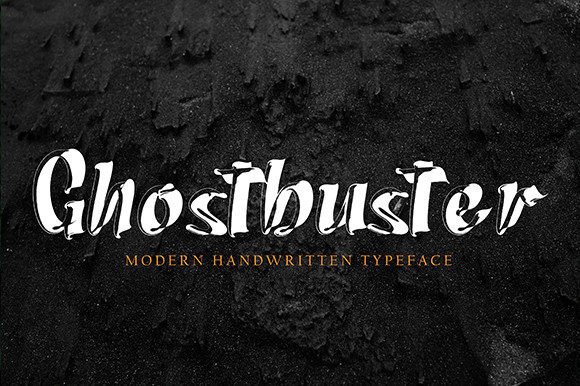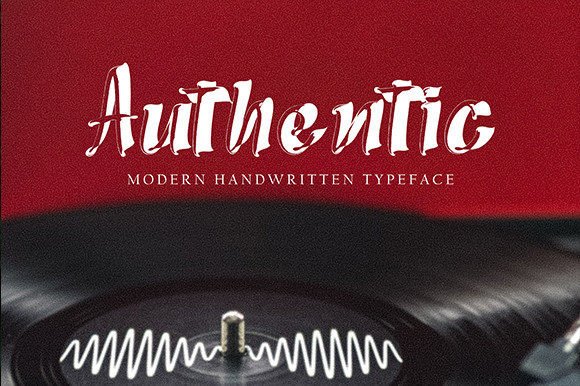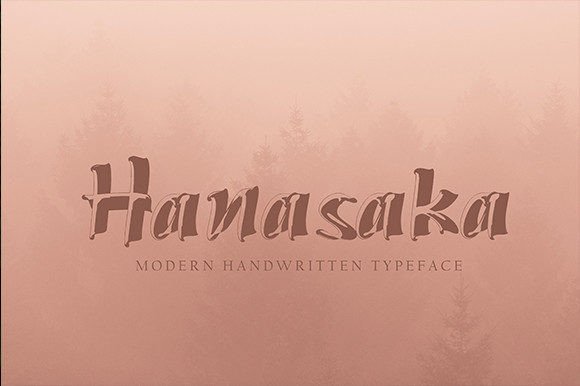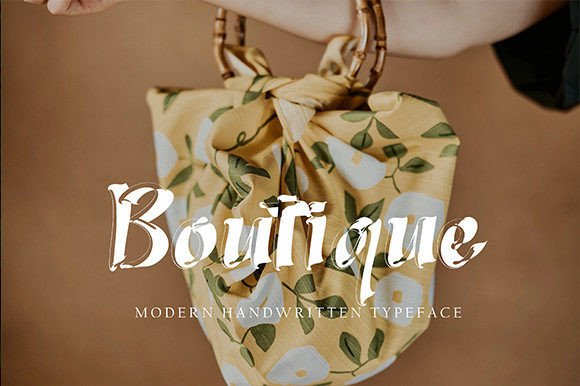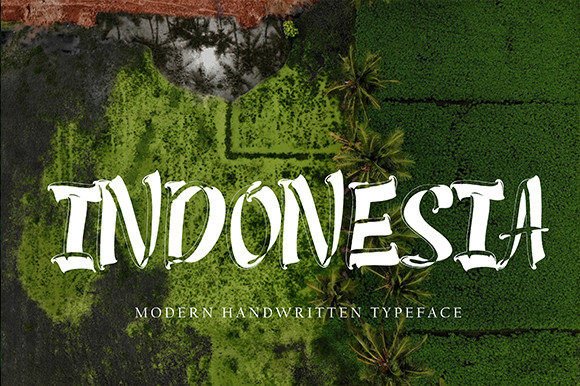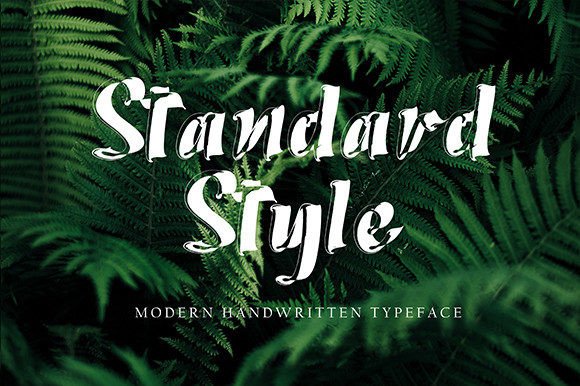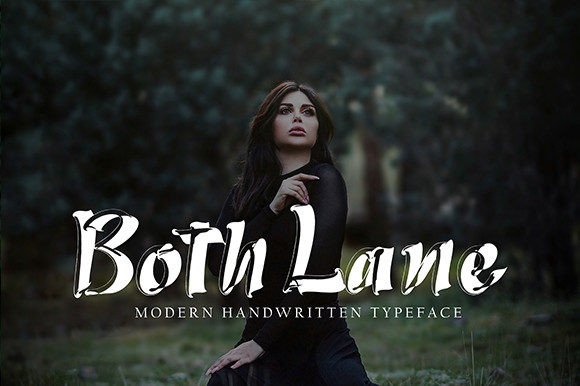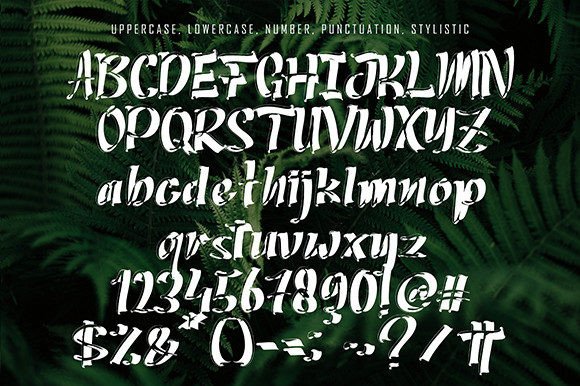
Ink Gold Font
About Ink Gold Font
“Ink Gold is a beautiful handwritten font featuring a distinctive new style. Designed for versatility, this font is perfect for a wide array of projects including quotes, logos, blog headers, posters, branding, letters, invitations, stationery, and more.
The allure of Ink Gold lies in its unique handwritten style, introducing a fresh and contemporary aesthetic. This font is a perfect choice for designers seeking a typeface that brings a modern and stylish touch to their creative endeavors.
Whether you’re working on a logo or crafting a beautiful invitation, Ink Gold stands out as a font that enhances the overall visual appeal. Its individualistic strokes and contemporary design add a sense of modernity to your text.
Imagine Ink Gold elevating your projects, bringing a beautiful handwritten touch with a new style that sets a modern tone. The font becomes the defining element that sets your designs apart, creating a visual experience that resonates with uniqueness and contemporary flair.
As you explore the nuances of Ink Gold, you’ll discover its potential to transform ordinary projects into visually striking expressions. Let it be the font that infuses a touch of modern elegance into your creative vision, making your designs stand out with a fresh and stylish aesthetic. With Ink Gold, every stroke becomes a brushstroke of contemporary beauty.”